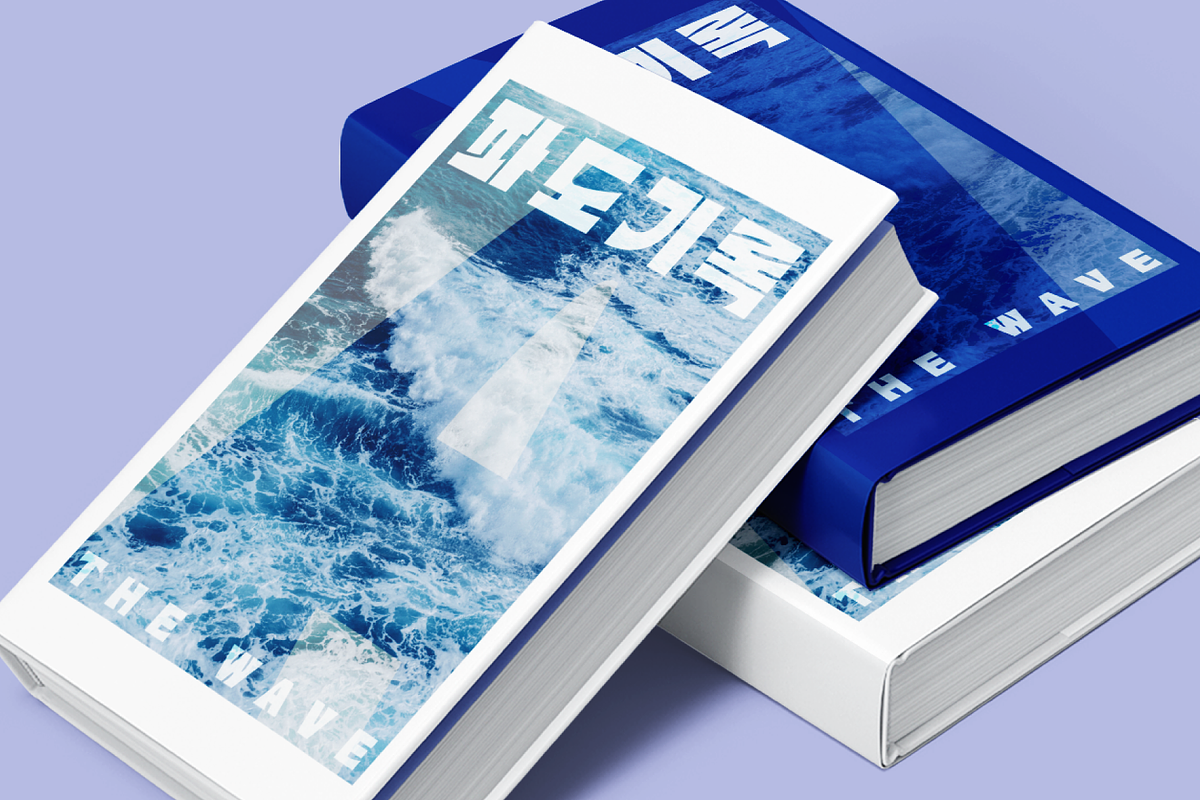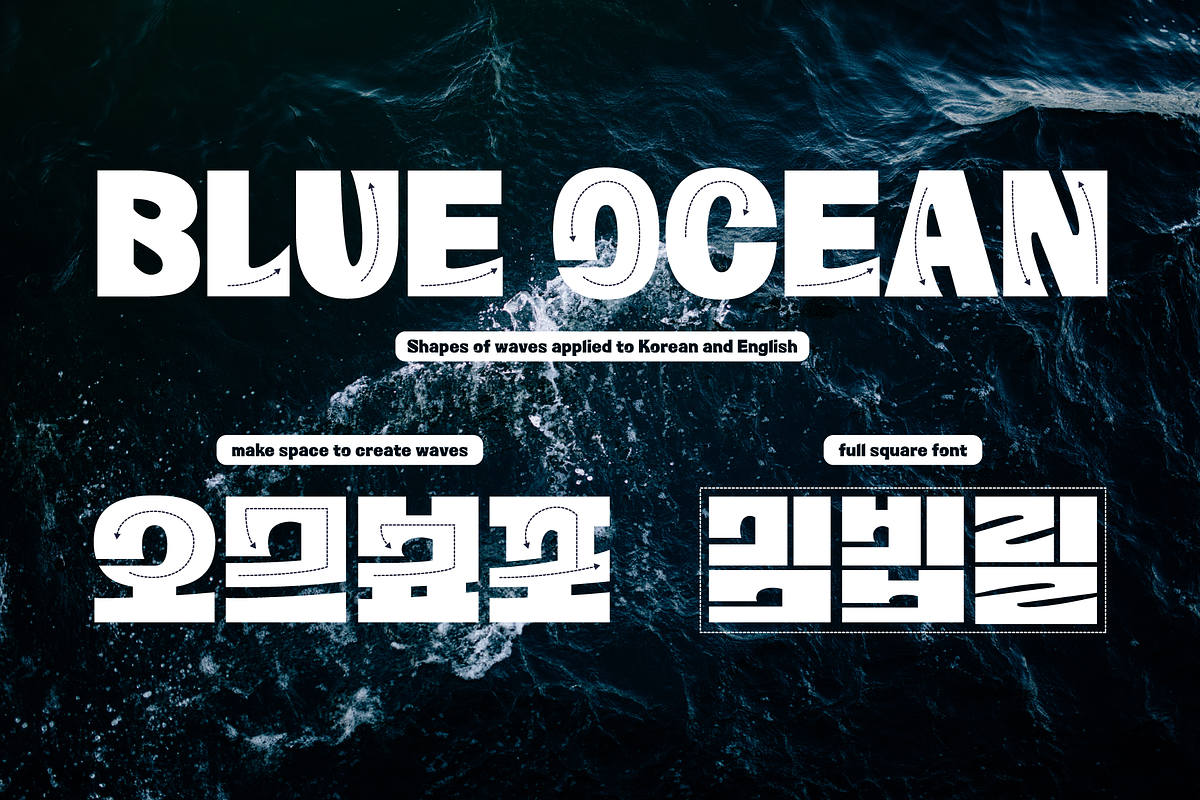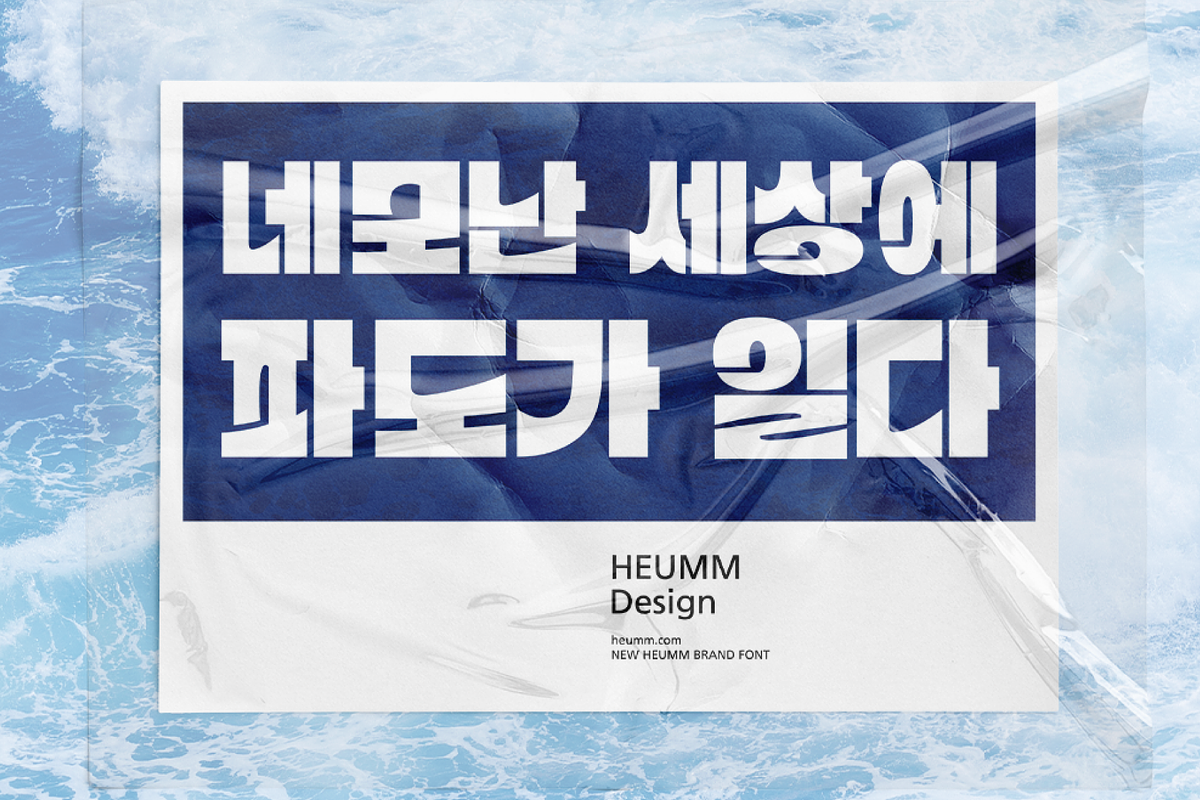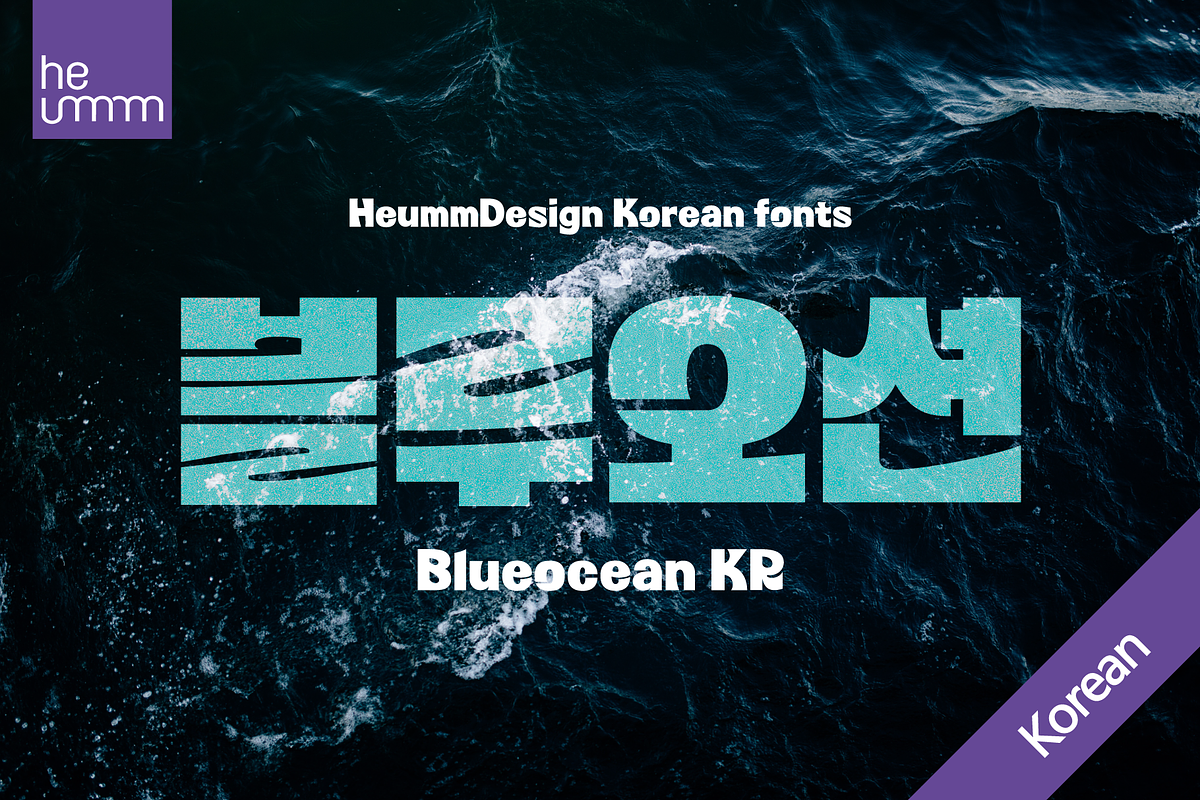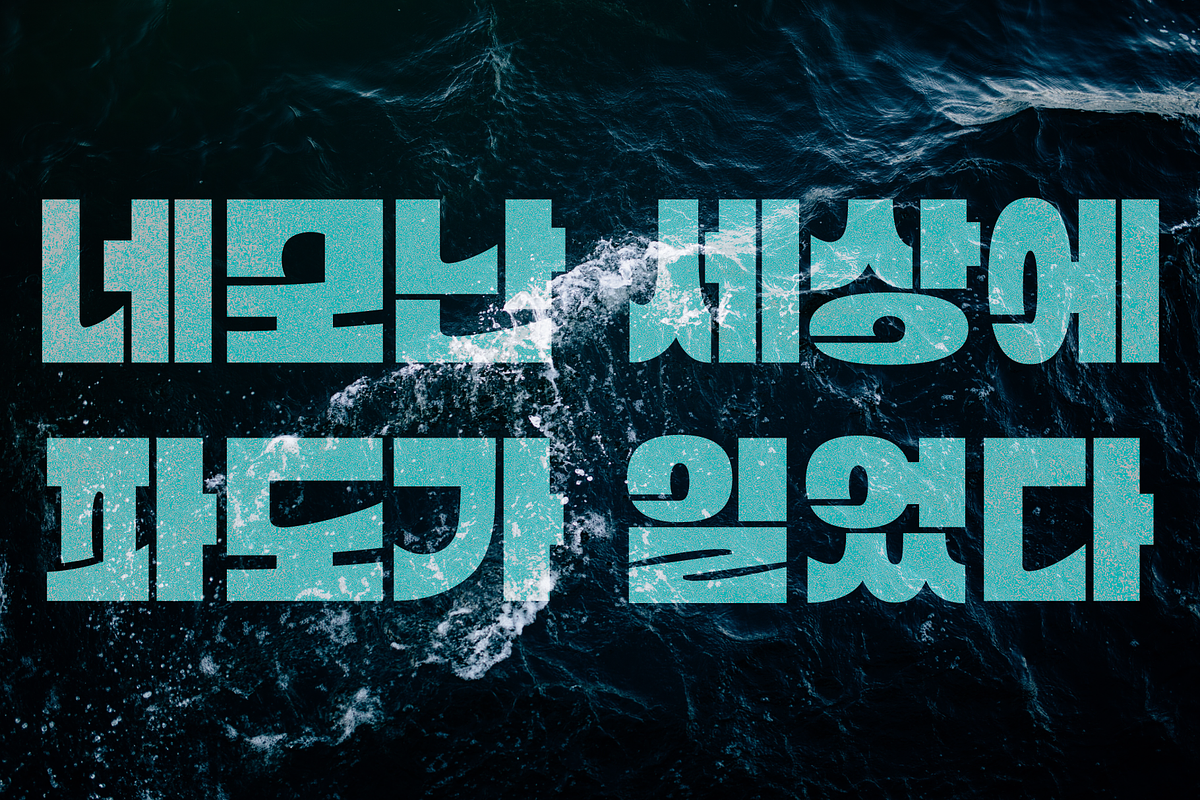
HU Blueocean KR is a headline typeface created by imagining waves in a square glass tube.
It is designed to be used in various environments by adding decorative elements, the swaying form of waves, to the Gothic style of a full square module.
HU Blueocean KR includes Korean.
There is 1 weight of HU Blueocean KR : ExtraBlack